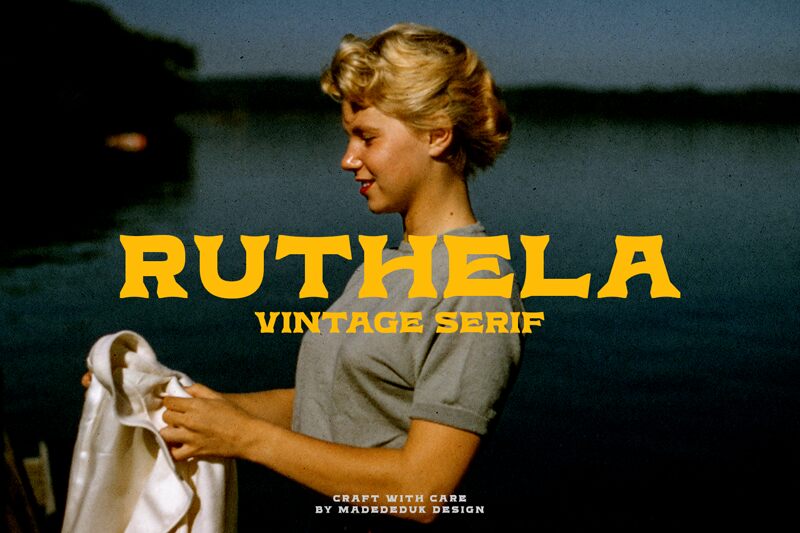
Ruthela font by madeDeduk is a free retro font designed to evoke nostalgia and classic charm with incredible details. The font effortlessly brings together vintage vibes with modern graphic styles – an amazing advantage that enables it to stand out through its lines and shapes. Its classic nature and robust characters take inspiration from historical references which makes the font suitable for a wide variety of contexts and experiments.
Retro branding and nostalgic design projects that call for an impactful font will benefit greatly from Ruthela. The font though can be utilized in even more places, including headlines, editorial design, magazines, books, movies, logos, advertisements, printing projects, restaurants, foods, beverage, packaging, and product designs.